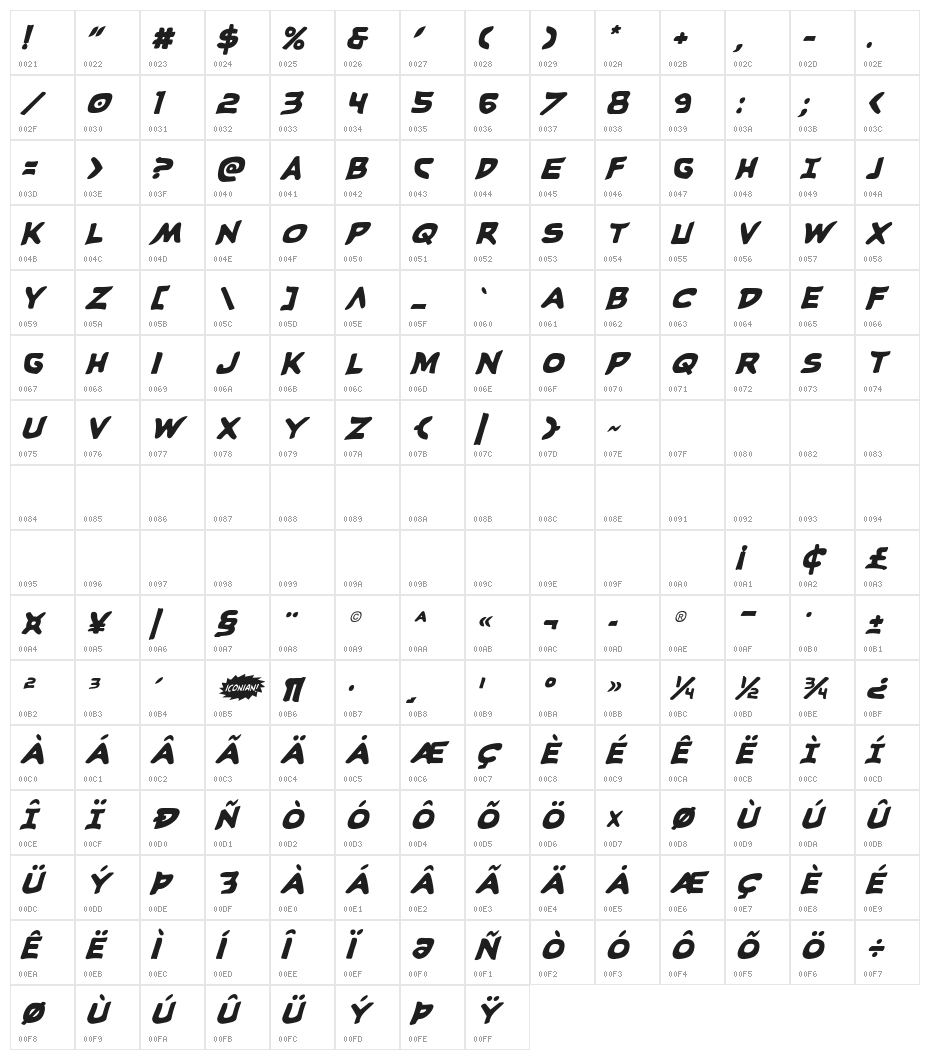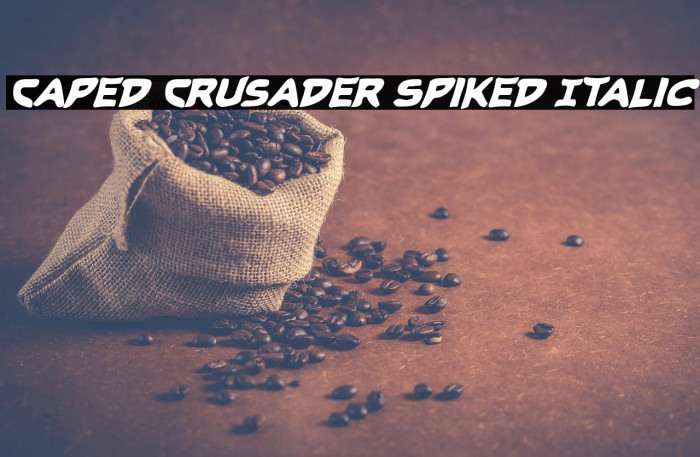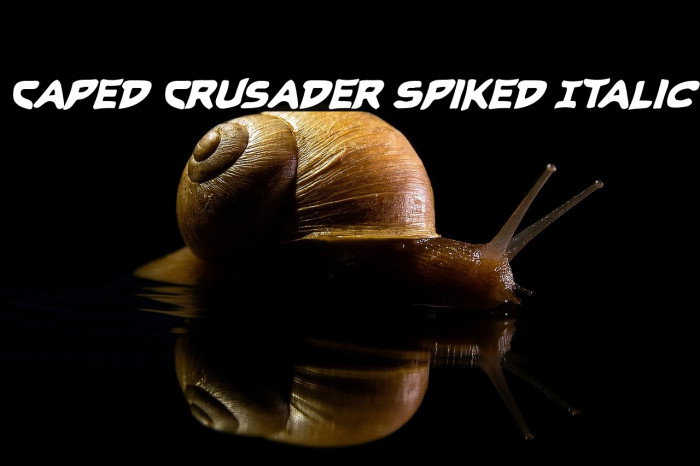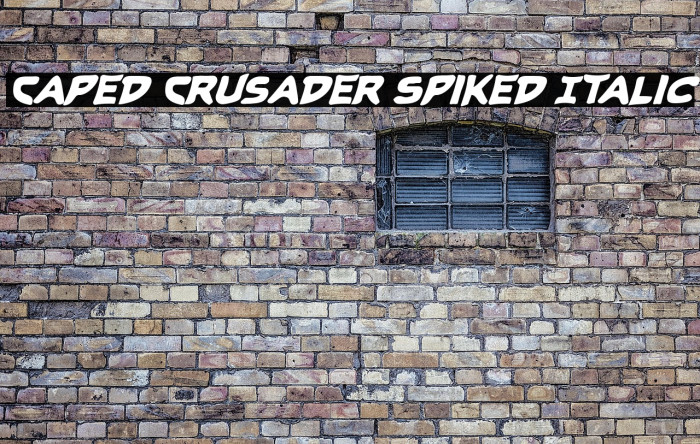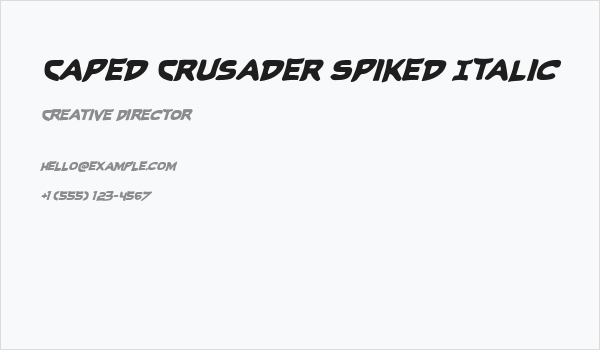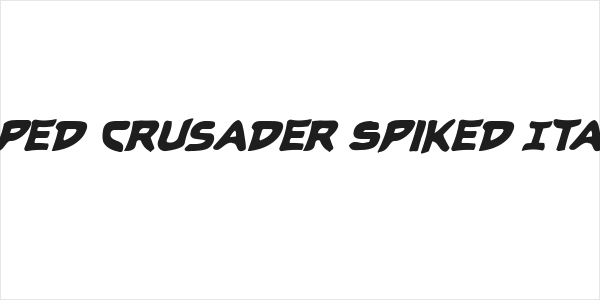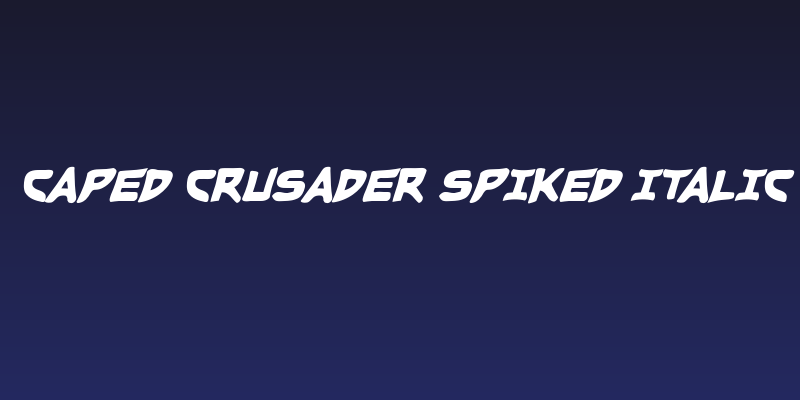
Caped Crusader Spiked Italic Font
Caped Crusader Spiked Italic Description
This font features a bold and dynamic style with a spiked, italicized appearance. The characters are thick and robust, giving a sense of strength and energy. The italic slant adds a sense of motion, making it ideal for projects that require a sense of urgency or excitement. The uppercase and lowercase letters maintain a consistent style, with sharp edges and a slightly condensed form. The numbers and special characters follow the same design principles, ensuring a cohesive look across all text elements.
| Overall Style | Modern, Energetic |
| Proposed Projects | Ideal for comic book titles, action movie posters, video game graphics, and branding for energetic products. |